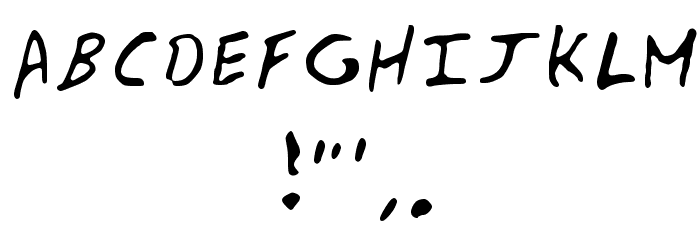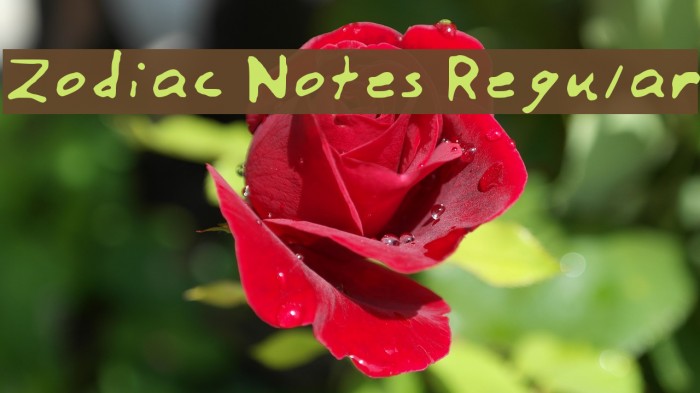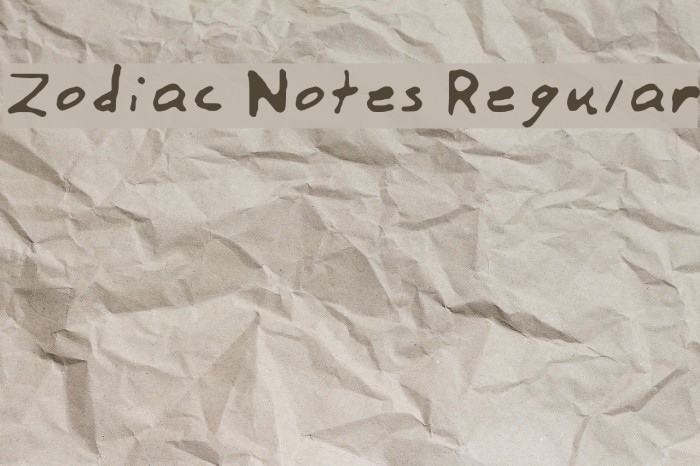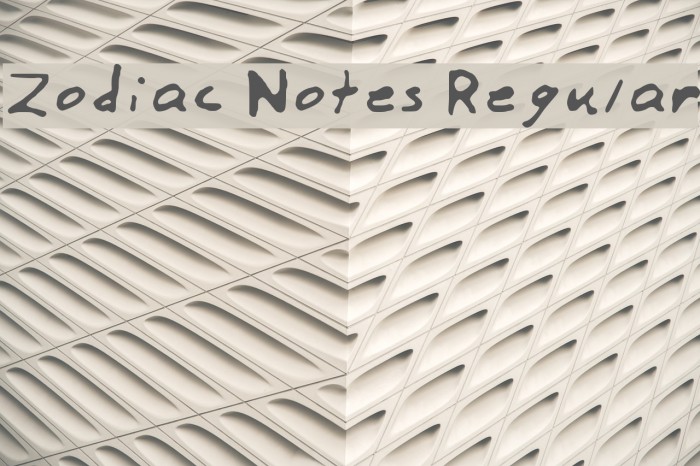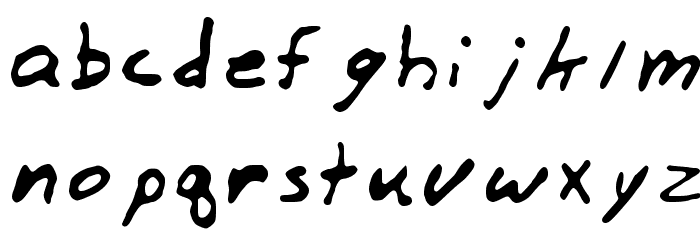
Zodiac Notes Regular Font
Zodiac Notes Regular Description
This font exhibits a casual, handwritten style that mimics the look of natural handwriting. The characters are slightly irregular, adding a personal and informal touch. The strokes are uneven, with a playful and spontaneous feel. The uppercase and lowercase letters maintain a consistent style, with a slight slant that suggests a relaxed, informal tone. The numbers and special characters follow the same aesthetic, ensuring uniformity across all glyphs. This font is ideal for projects that require a personal, approachable, and friendly appearance.
| Overall Style | Casual, Informal |
| Use Case | Personal notes, Creative projects, Informal communications |
| Proposed Projects | Ideal for personal notes, greeting cards, informal invitations, and creative projects that require a personal touch. |